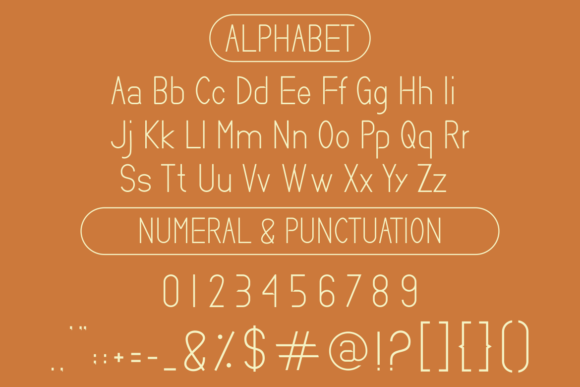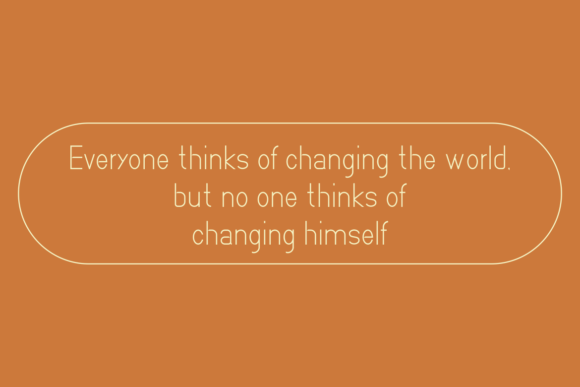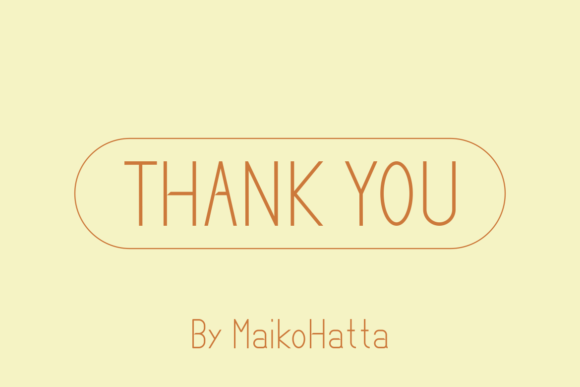
Introducing Hayai Font: The Perfect Handwritten Font for Your Branding Projects
Are you looking for a beautiful and elegant font to elevate your branding projects? Look no further than Hayai Font, a stunning handwritten font with thin characters that is sure to make your designs stand out. In this article, we’ll take a closer look at the Hayai Font, its features, and how it can be used to enhance your branding projects, from logos to t-shirt printing and beyond.
What is Hayai Font?
Hayai Font is a gorgeous handwritten font that boasts a unique and elegant style. Its thin characters give it a delicate and refined look, making it perfect for a wide range of design applications. Whether you’re working on a logo, brochure, or social media graphics, Hayai Font is sure to add a touch of sophistication and class to your designs.
Key Features of Hayai Font
- Handwritten style: Hayai Font has a beautiful handwritten style that gives it a personal and unique touch.
- Thin characters: The font’s thin characters make it perfect for designs that require a delicate and refined look.
- Versatile: Hayai Font is suitable for a wide range of design applications, from logos and branding to t-shirt printing and more.
- Easily readable: Despite its thin characters, Hayai Font is easily readable, making it perfect for body text and headings.
Use Cases for Hayai Font
Hayai Font is an incredibly versatile font that can be used in a wide range of design applications. Here are some use cases where Hayai Font shines:
- Logo design: Hayai Font is perfect for creating elegant and sophisticated logos that make a lasting impression.
- T-shirt printing: The font’s thin characters make it ideal for t-shirt printing, where bold and chunky fonts can be overwhelming.
- Esports: Hayai Font’s unique style makes it perfect for esports branding, where teams need to stand out from the competition.
- Branding and advertising: Hayai Font can be used to create stunning branding and advertising materials, from brochures to social media graphics.
Why Choose Hayai Font?
With so many fonts available, why choose Hayai Font? Here are some reasons why Hayai Font stands out from the rest:
- Unique style: Hayai Font has a unique and elegant style that sets it apart from other fonts.
- High-quality design: The font is designed with high-quality craftsmanship, ensuring that it looks great in any design application.
- Easily customizable: Hayai Font can be easily customized to fit your brand’s style and tone.
- Multilingual support: Hayai Font supports multiple languages, making it perfect for global brands.
Tips for Using Hayai Font
Here are some tips for using Hayai Font in your designs:
- Pair it with bold fonts: Pair Hayai Font with bold fonts to create stunning contrast and visual interest.
- Use it for headings and body text: Hayai Font is suitable for both headings and body text, making it a versatile font for any design project.
- Experiment with colors: Hayai Font looks great in a wide range of colors, so don’t be afraid to experiment and find the perfect color scheme for your design.